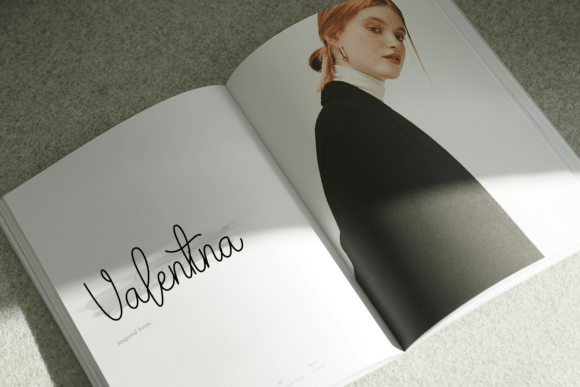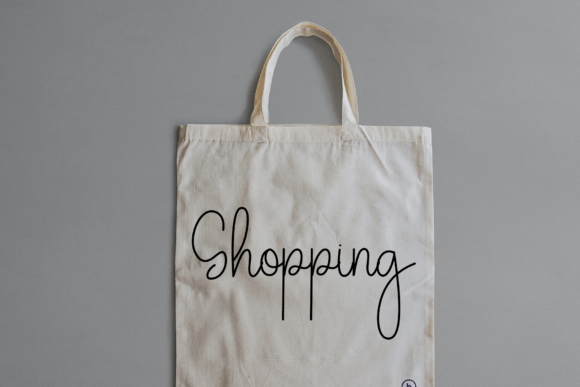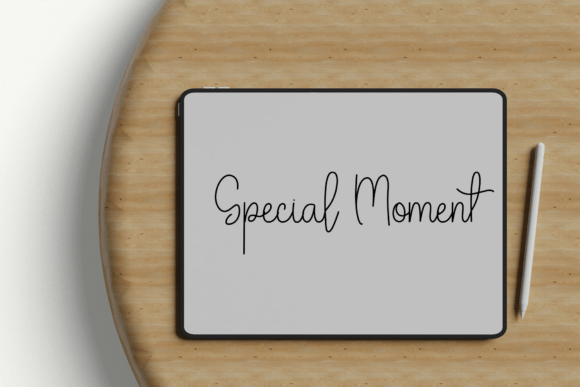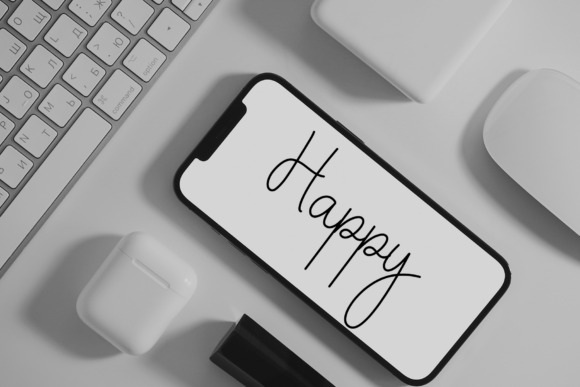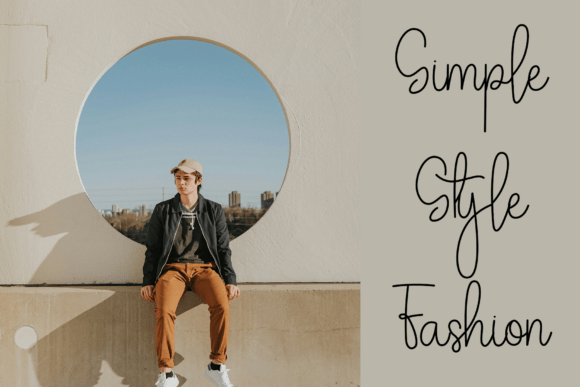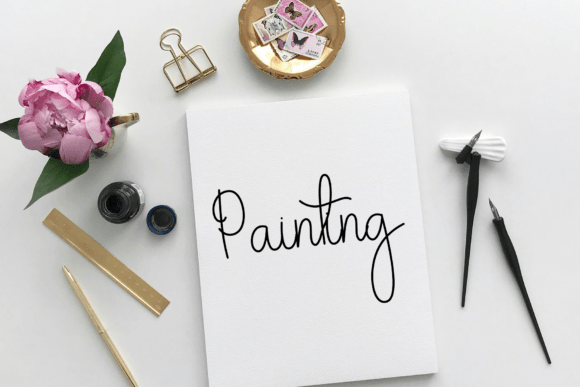
The Perfect Addition to Your Design Toolbox: Daisy Font
As a designer, there’s nothing quite like the thrill of bringing a new project to life. You’re brainstorming ideas, experimenting with colors, and searching for the perfect font to tie everything together. And that’s where Daisy Font comes in – a charming, casual typeface that’s sure to add a warm and inviting touch to your designs.
Daisy Font is more than just a pretty face; it’s a versatile tool designed to help you create beautiful, approachable designs for personal projects, invitations, and social media graphics. Its unique, hand-drawn aesthetic sets it apart from more formal fonts, making it the perfect choice for designers who want to add a touch of personality to their work.
Daisy Font Key Features
- Unique Characteristics: The font features a unique, hand-drawn design with subtle flair and elegance, making it suitable for various design applications, including logos, headings, and body text.
Daisy Font Review
Overall, I’m impressed with the Daisy Font. It’s a beautiful, modern script font that’s perfect for adding a touch of elegance to any design project.
- ✨ Elegant and refined feel: The Daisy Font has a sophisticated, high-end look that’s sure to make a statement.
- ✨ Versatile: Whether you’re working on a wedding invitation, a branding project, or a social media campaign, the Daisy Font is a great choice.
- ✨ OpenType features: The font includes advanced OpenType features, making it easy to create custom effects and typography.
- ⚠️ Limited character set: The font’s character set is relatively small, which may not be ideal for projects that require a wide range of languages or special characters.
- ⚠️ May require manual kerning: Depending on the specific text and layout, you may need to manually adjust the kerning to achieve the best results.
Overall, I’m really enjoying working with the Daisy Font. It’s a great choice for designers who want to add a touch of sophistication and elegance to their projects. While it may have some limitations, I think the benefits far outweigh the drawbacks.
Tip: Use the Daisy font for playful and whimsical designs, such as invitations or social media graphics.
Tip: Use the Daisy font for creative and artistic designs, such as logos or typography-based graphics.
Tip: Use the Daisy font for presentations or documents that require a playful and approachable tone.
The Daisy font is suitable for:
- Invitations and event graphics
- Social media graphics and posts
- Typography-based graphics and art
Remember to use the Daisy font in conjunction with other design elements to create a cohesive and visually appealing design.
Alternatives to Daisy Font for Designers
Lato Font is a modern sans-serif font that is highly legible and versatile. It is suitable for use in a variety of applications, including digital products, signage, and print materials. Lato Font has a similar feel to Daisy Font but with a more streamlined and contemporary look.
Comparison to Daisy Font: Lato Font is more geometric and precise, while Daisy Font has a more playful and cursive feel.
Open Sans Font is a clean and neutral sans-serif font that is highly readable and suitable for use in digital products, signage, and print materials. It has a similar feel to Daisy Font but with a more minimalist and modern look.
Comparison to Daisy Font: Open Sans Font is more straightforward and lacks the flair of Daisy Font, but it is more versatile and suitable for a wider range of applications.